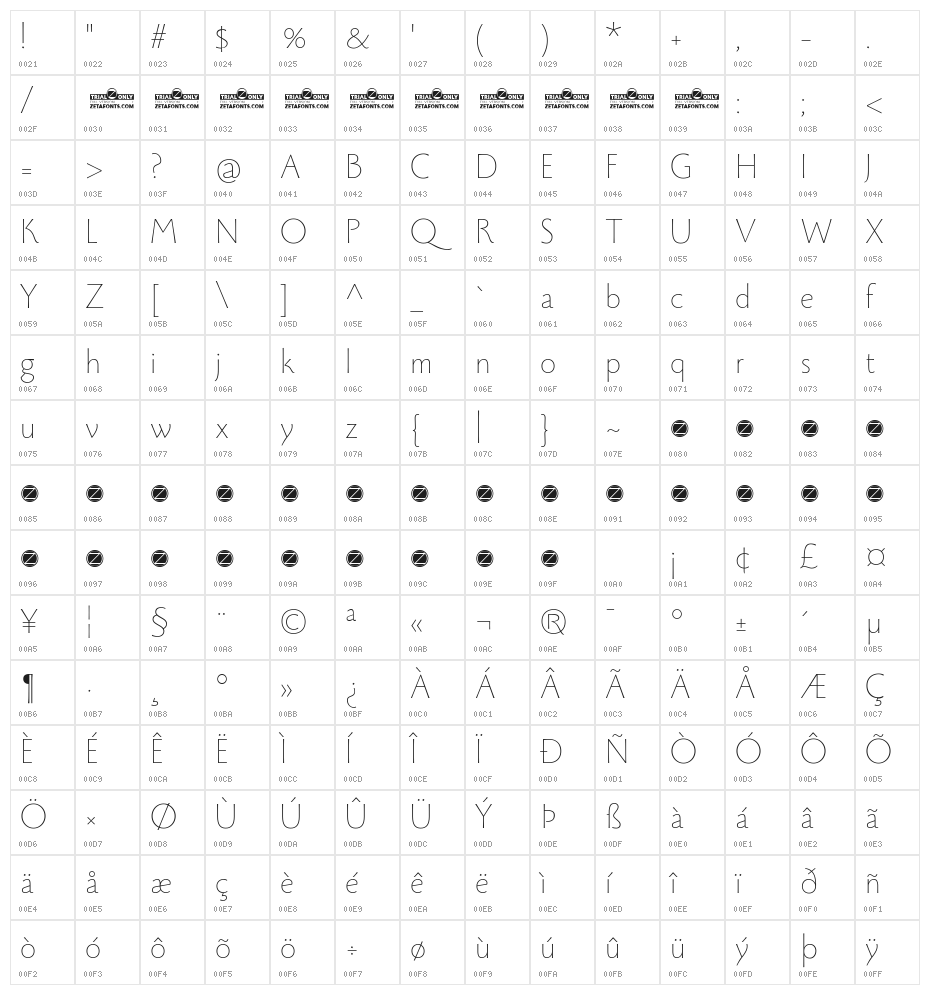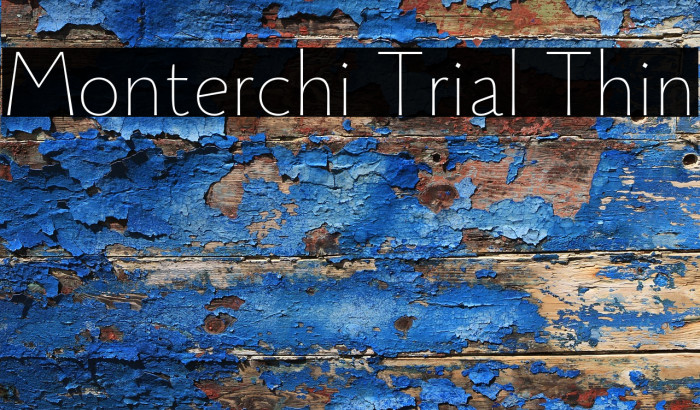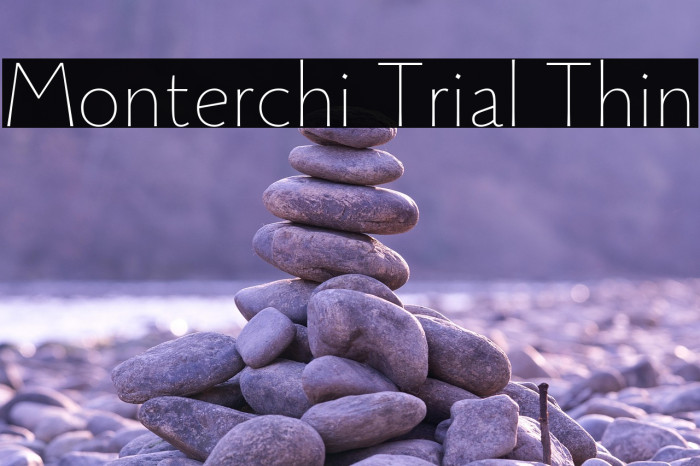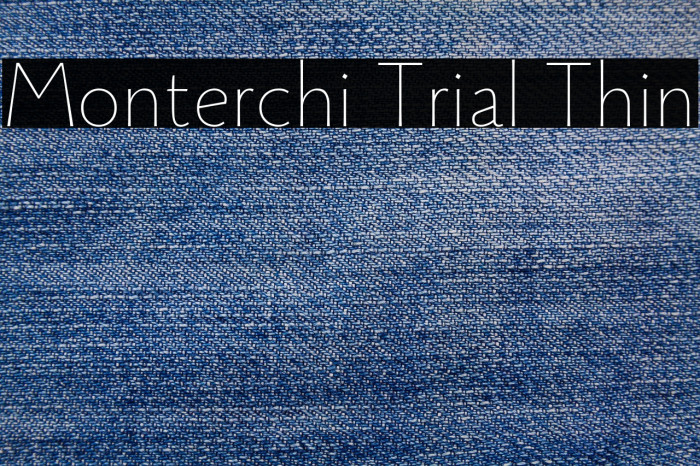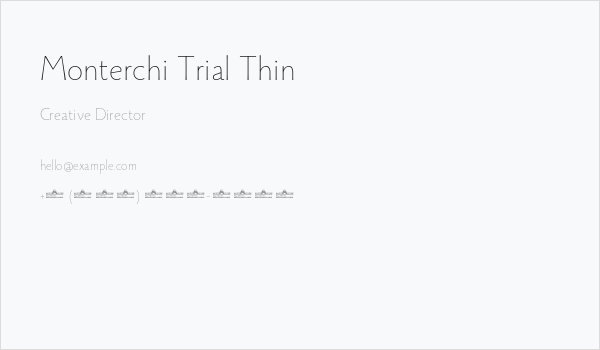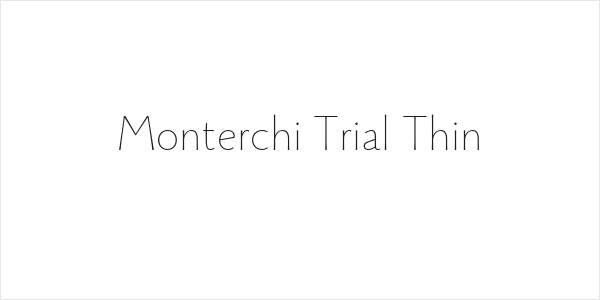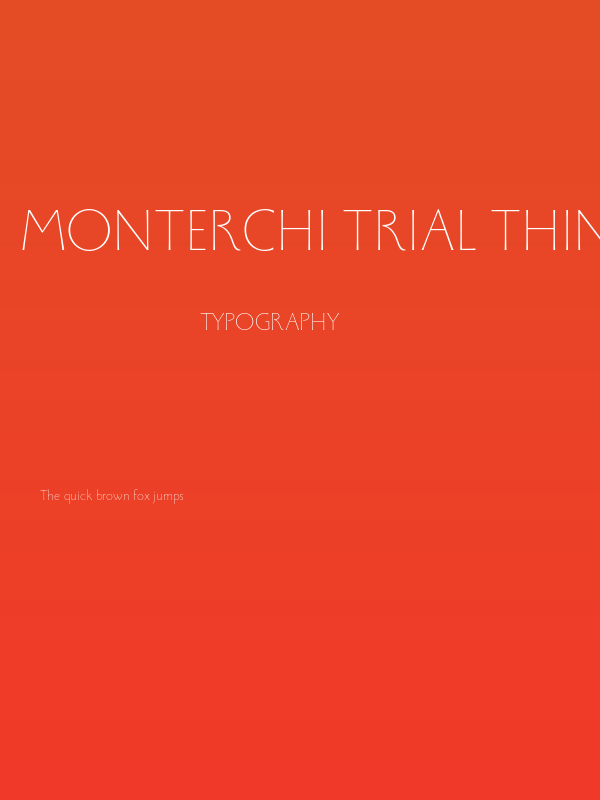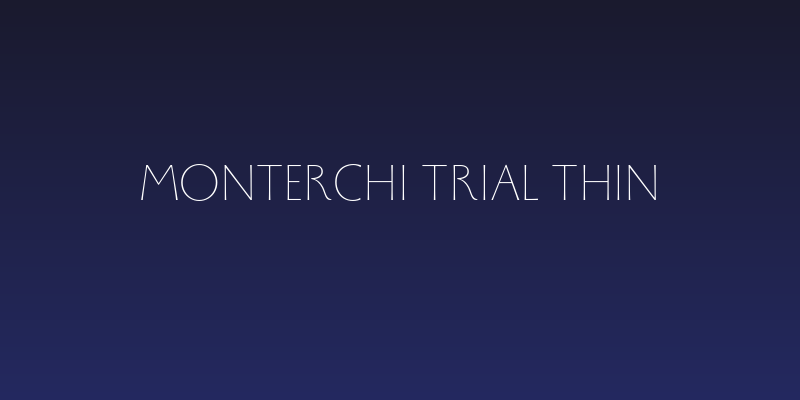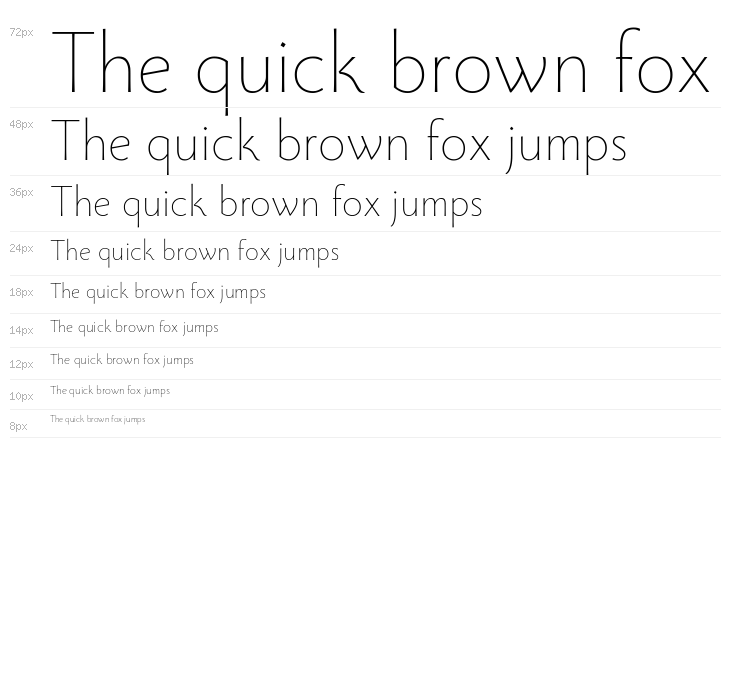
Monterchi Trial Thin Font
Monterchi Trial Thin Description
This font features a sleek, elegant design with thin, elongated strokes that give it a refined and sophisticated appearance. The characters are well-proportioned, with a slight curvature that adds a touch of softness to the overall look. The uppercase letters are tall and commanding, while the lowercase letters maintain a consistent height, contributing to a harmonious flow. The numerals and special characters are designed with the same attention to detail, ensuring a cohesive visual experience. This font's minimalistic style makes it versatile for various design applications.
| Use Case | Logos, Headlines, Editorial design |
| Proposed Projects | Ideal for luxury branding, editorial design, wedding invitations, and high-end product packaging. |